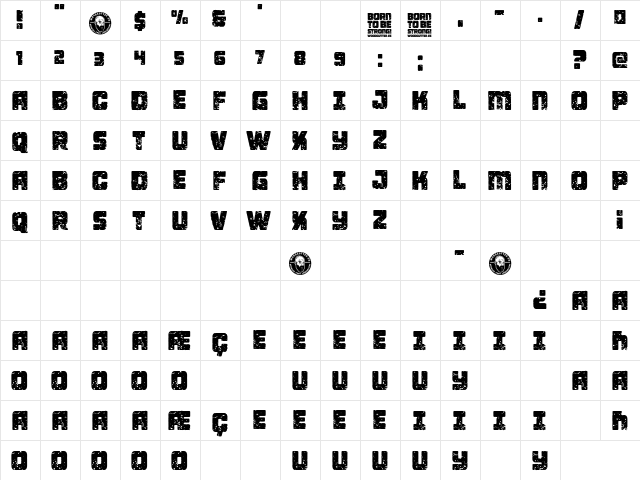
Born To be Strong! Regular
| Designer | Woodcutter Manero |
Design Context for Born To be Strong! Typeface
Born To be Strong! is a composed and adaptable typeface that performs quietly and consistently across a wide range of design contexts.